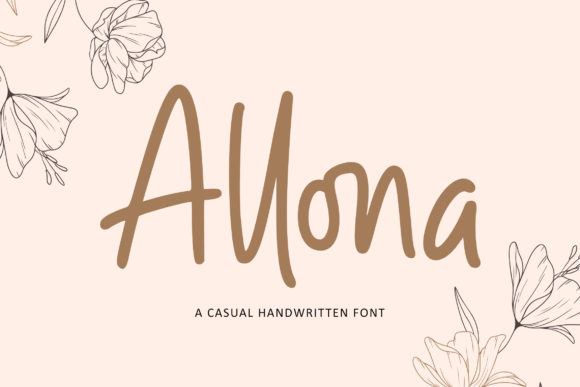
The Allona Font: A Handwritten Gem for Creative Projects
Have you ever been in the middle of a design project, and suddenly, you’re stuck on finding the perfect font? I recall a particularly frustrating experience while working on a wedding invitation design. My client wanted a font that was both elegant and casual, but I just couldn’t seem to find the right fit. That was until I stumbled upon the Allona Font. ✨
An Honest Review of Allona Font
I’m excited to share my thoughts on the Allona Font, and what I love about it:
- ✅ Versatility: Allona Font feels equally casual and adaptable, making it perfect for various design projects.
- ✅ Handwritten touch: It adds a beautiful, personal touch to any design, from wedding invitations to business cards.
- ✅ Elegant and legible: The font is both elegant and easy to read, making it perfect for body text and headings.
While Allona Font is amazing, it’s not without its quirks:
- ⚠️ Limited availability of certain characters: Some users have reported issues with finding specific characters, but this can be mitigated by using the font’s OpenType features.
- 🤔 Occasional kerning issues: As with any font, you may need to adjust kerning for optimal results.
The Story Behind Allona Font
Allona Font was designed with the intention of creating a beautiful, handwritten font that could be used for a variety of creative projects. The designer aimed to craft a font that was both elegant and casual, making it perfect for designers, crafters, and creative hobbyists.
| What is the best use for Allona Font? | Allona Font is perfect for designs that require a handwritten touch, such as wedding invitations, thank you cards, quotes, greeting cards, logos, and business cards. |
| Is Allona Font suitable for body text? | Yes, Allona Font is legible and elegant, making it suitable for body text, but it’s particularly stunning as a display font. |
| Does Allona Font support OpenType features? | Yes, Allona Font supports OpenType features, including stylistic alternates and glyphs, which can be accessed using compatible design software. |